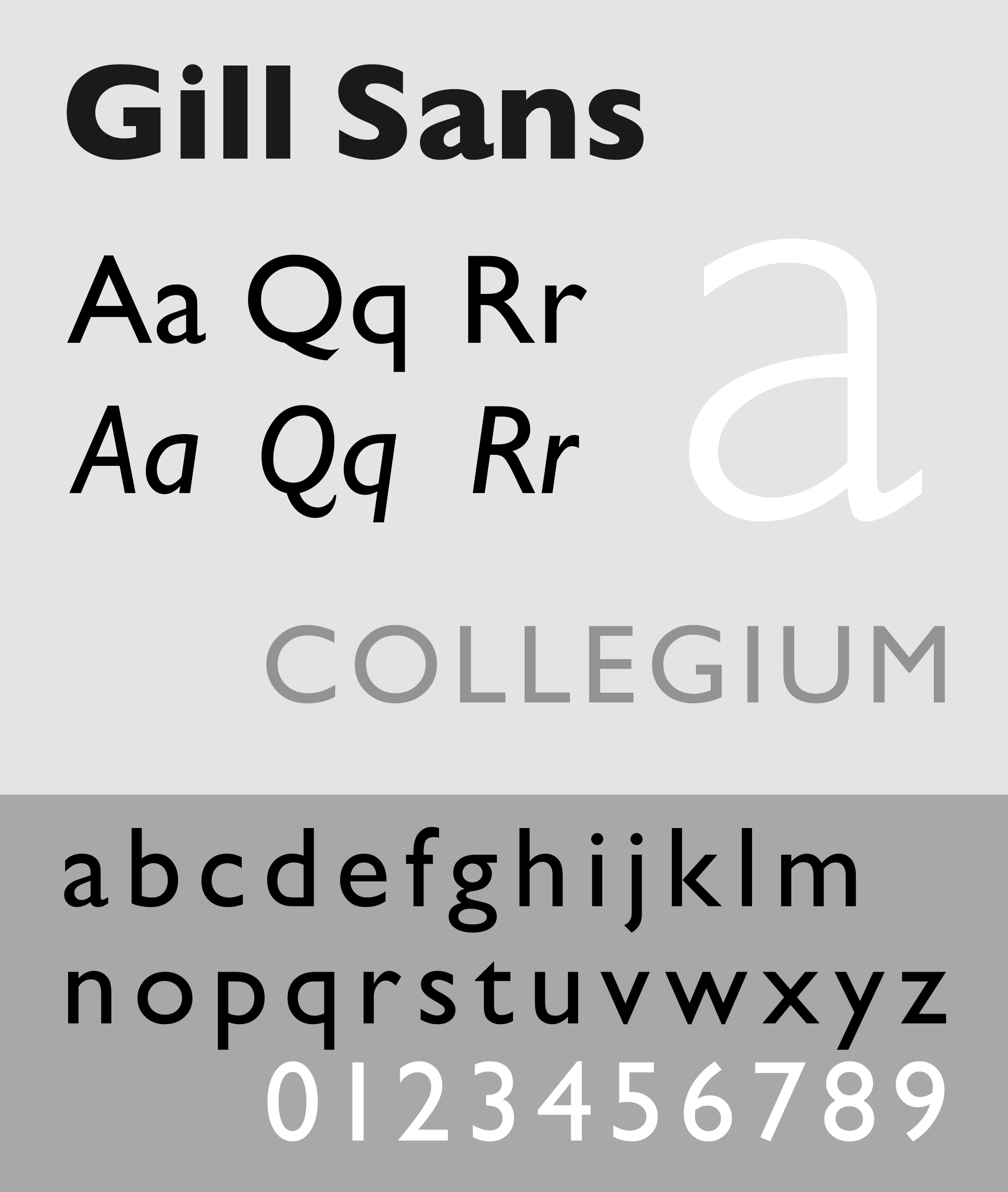
+13 Eric Gill Font Ideas. It goes with both titles and body texts as well. Save big on 2022 top 25 new fonts shop now.
His Best Known Type Designs.
Web if you recognize the font from the samples posted here don't be shy and help a fellow designer. It goes with both titles and body texts as well. Web gill sans is the famous set of humanist sans serif fonts originally designed by eric gill and the monotype type drawing office, first appearing in 1928.
While Apprenticed To An Architect In London, He Became Smitten With The World Of Calligraphy,.
The roots of gill sans can be traced. In her 1989 biography of the artist based on his memoirs,. Save big on 2022 top 25 new fonts shop now.
Web save the children to drop use of gill sans typeface from its branding in 2022. Gill's drawings of gill kayo. Web other typefaces by eric gill include perpetua and joanna (named after his daughters), aries, gill display, itc golden cockerel, itc golden cockerel initials and.
The British Font Designer Eric Gill Was Born In 1882, Died In 1940 And Created The Fonts.
Gill's design is based on the typeface of edward johnston, the innovative british letterer and. Aries font family was designed by eric gill, dave farey and published by fonthaus. Web the gill sans font is a humanist sans serif typeface because of its convenient readability quality.
The font was designed by disgraced artist and paedophile eric gill in 1928. 3 (1) pilgrim (1) bunyan. Opentype, truetype, postscript available for mac and pc.